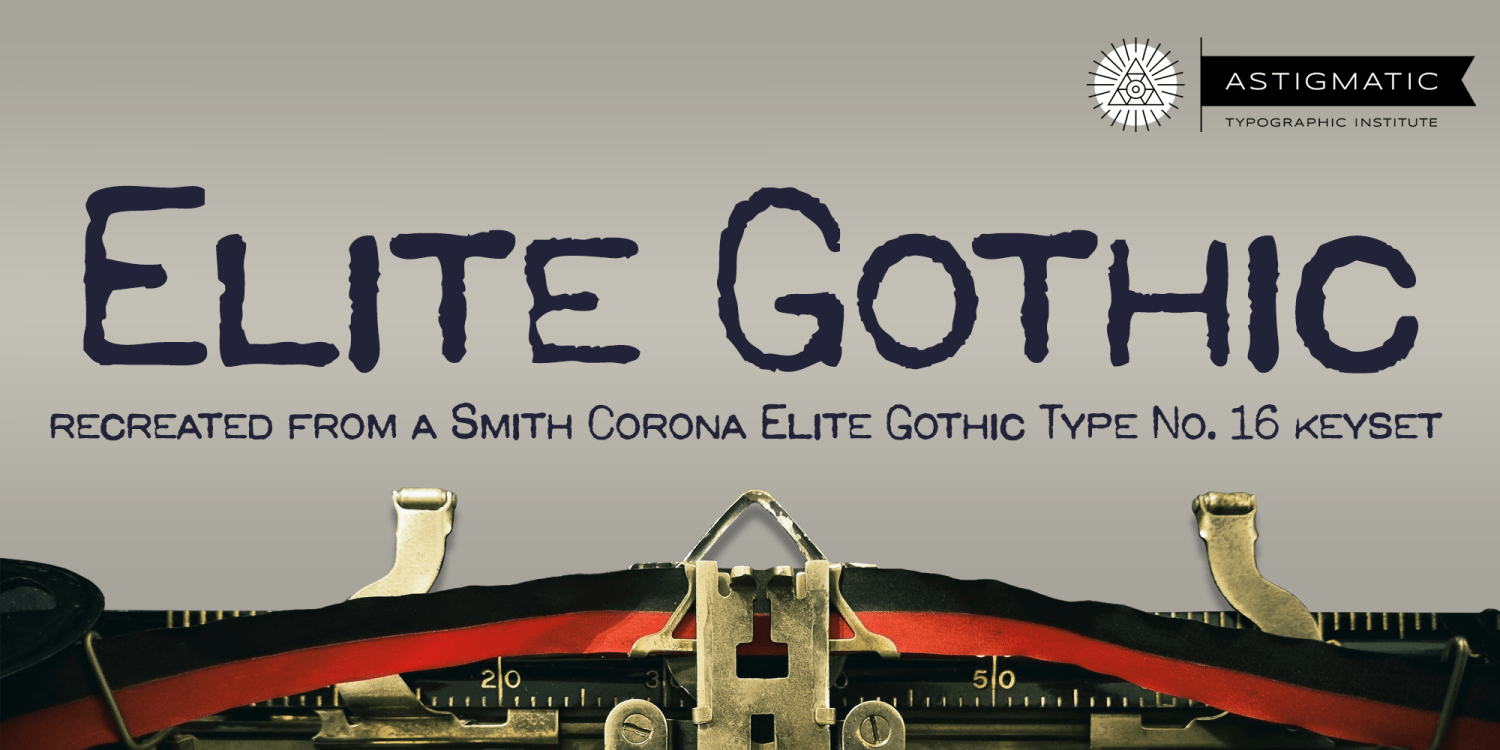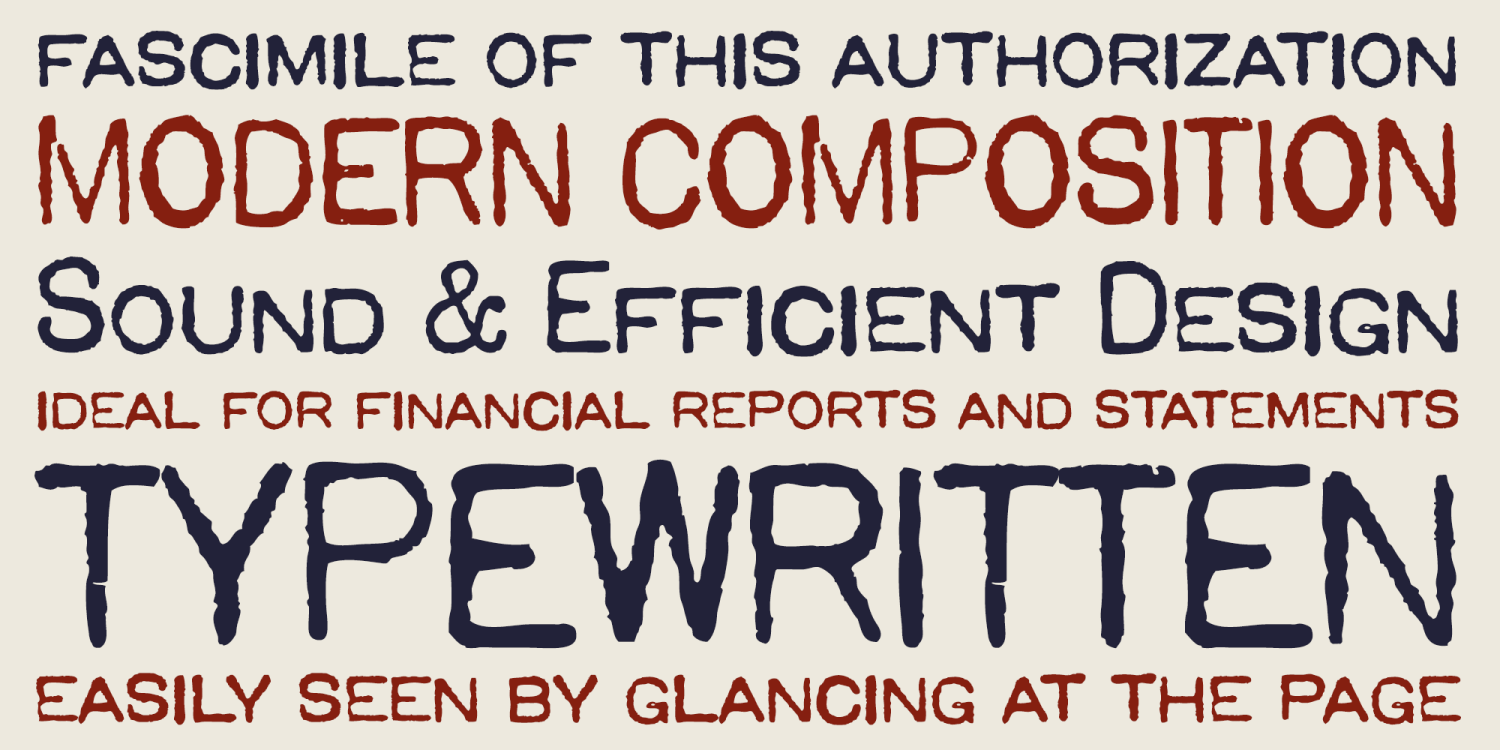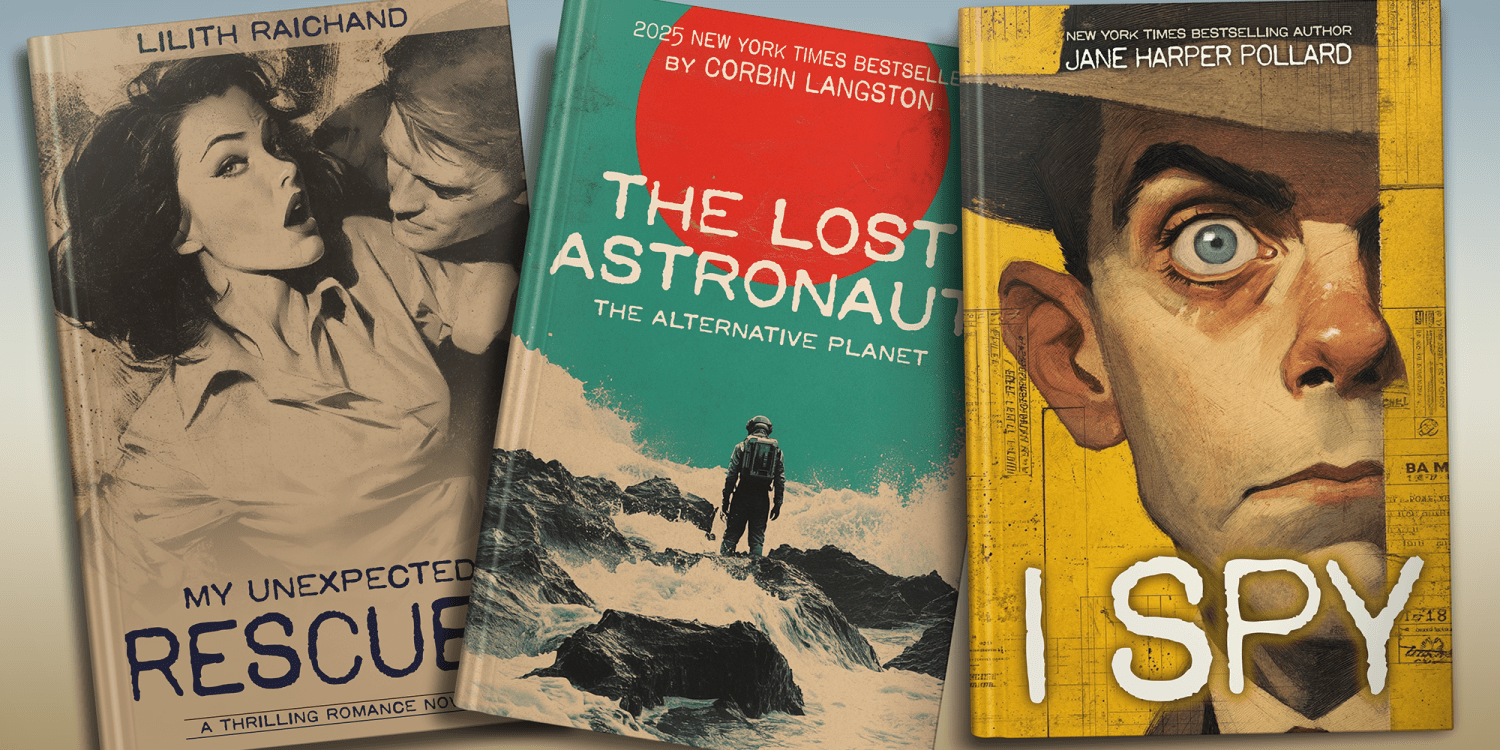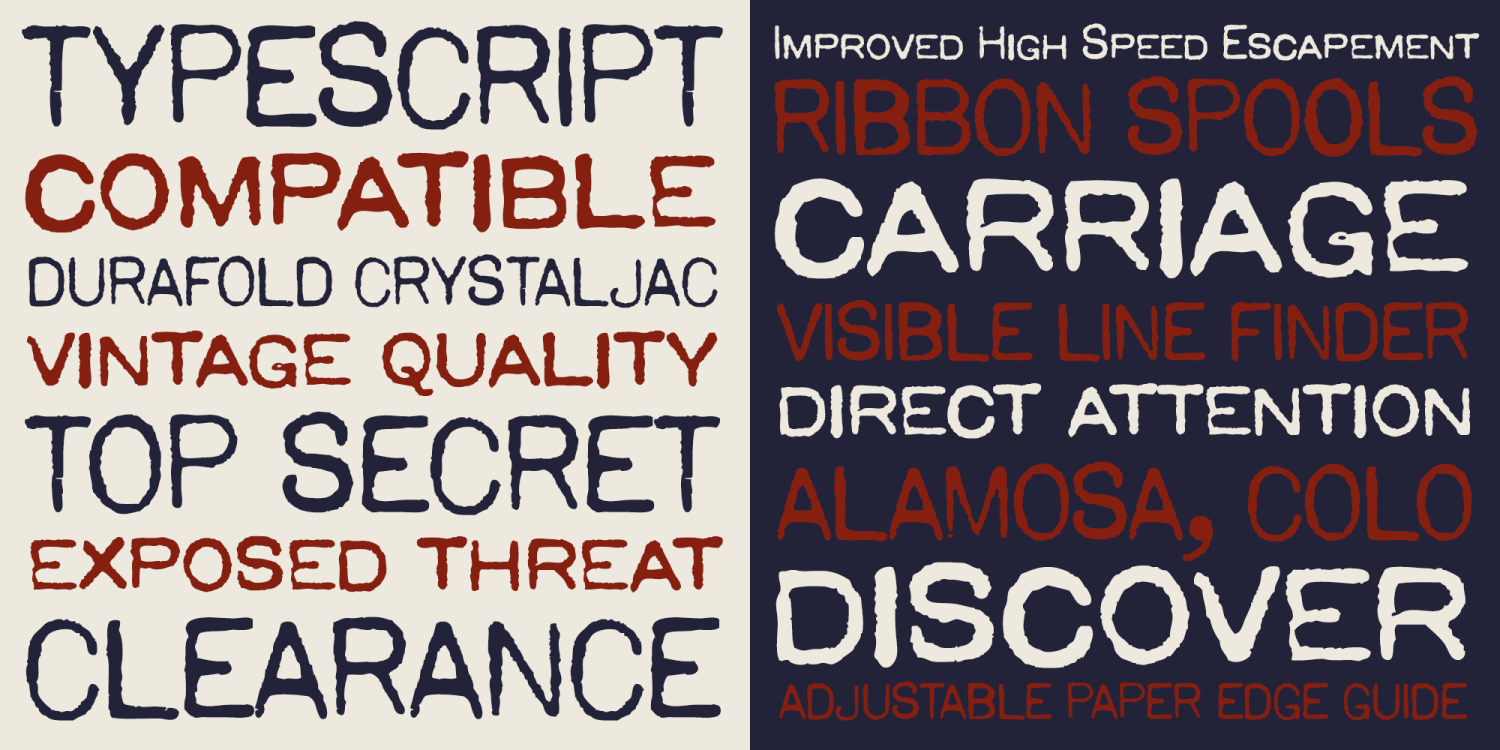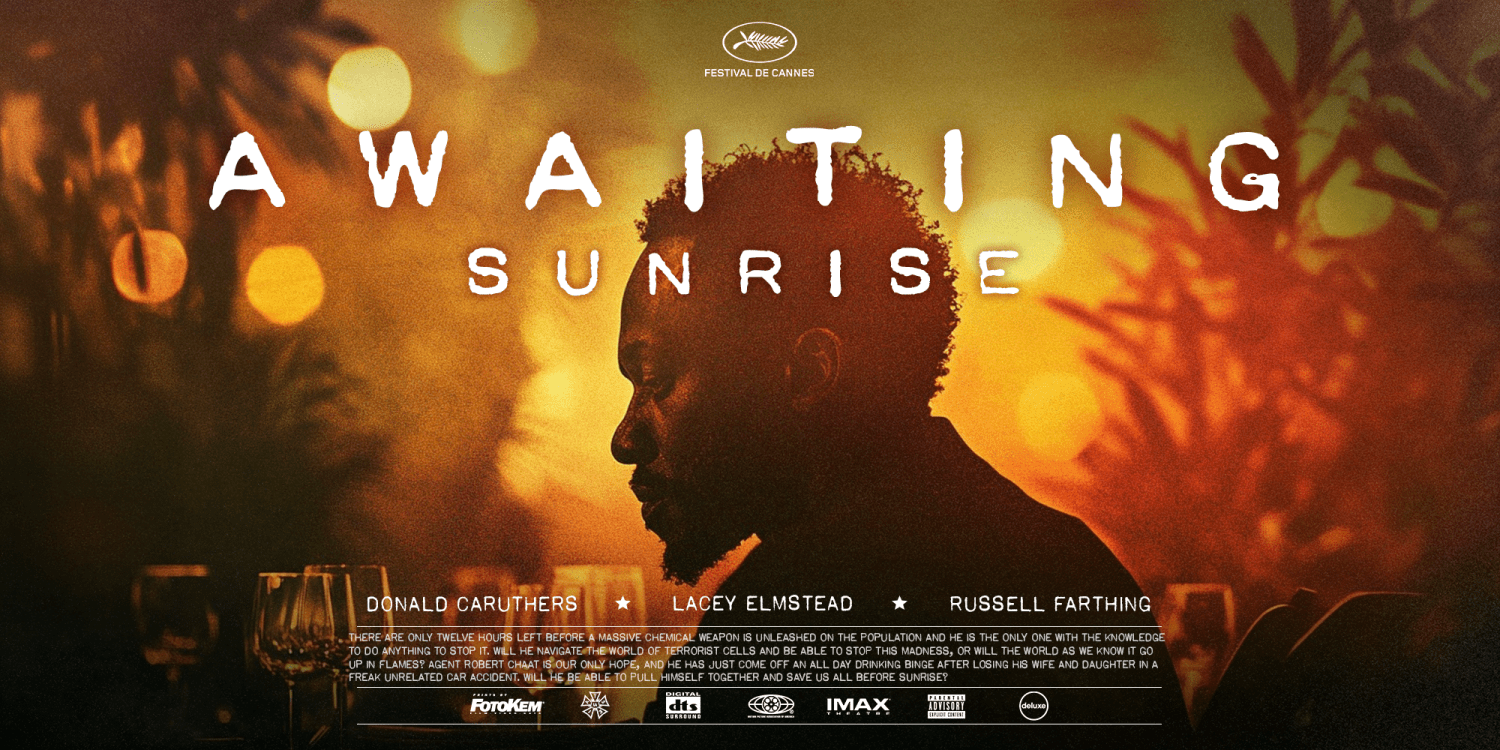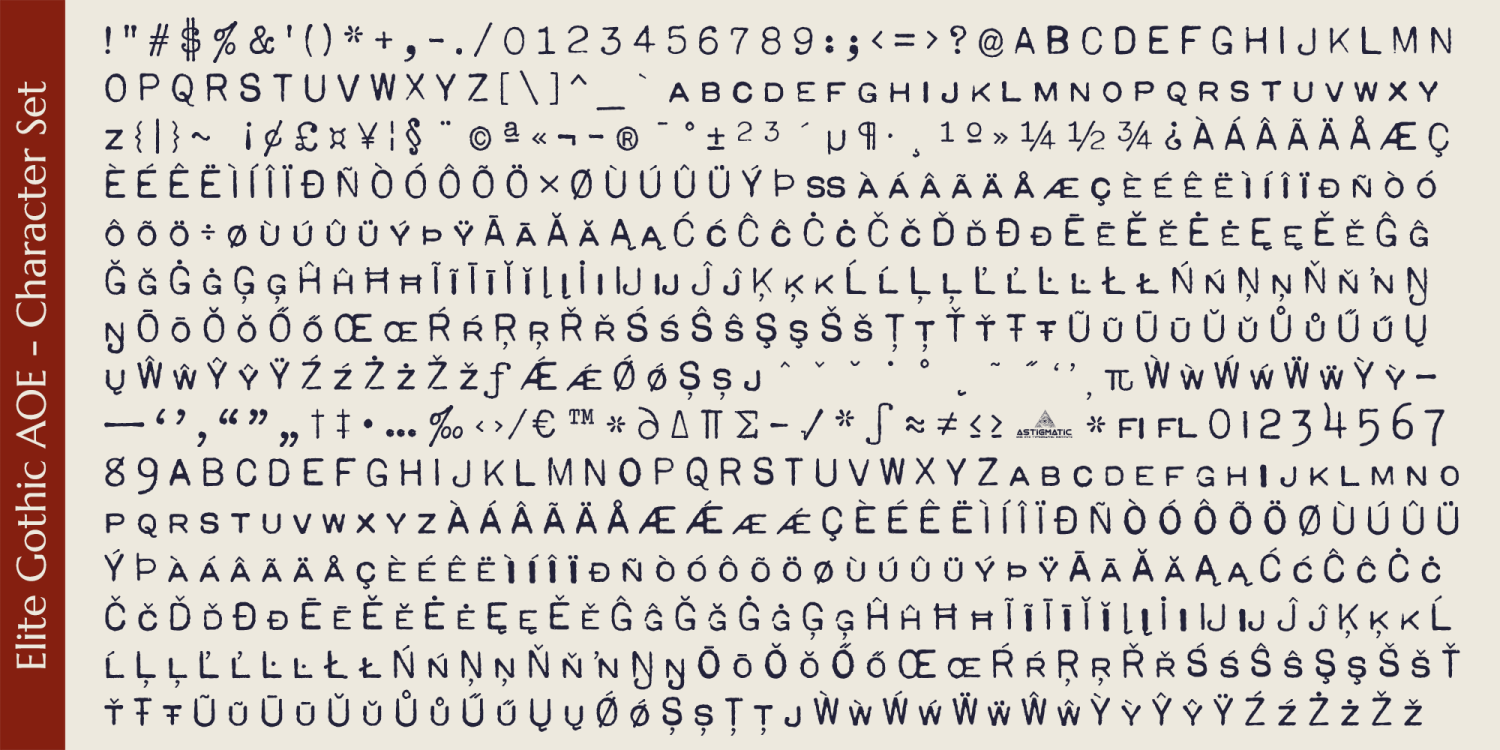
Elite Gothic AOE
Font Family by Astigmatic One Eye
Elite Gothic AOE brings the unique style of the Smith Corona Elite Gothic Type No. 16 vintage typewriter keyset to the digital age. Antique typewriters have an incredible warmth and appeal to them, primarily because of their unpredictable "grunge" results that were a mix from the force of keystrokes to the wear of the ribbon and paper texture. Elite Gothic has a full caps and smallcaps alternate set accessible by turning on Stylistic Alternates. It also appears when most double letter combinations are typed (swapping the second character for the alternate).
Extensive language support. Elite Gothic AOE has accented and special characters that support the following languages: Afrikaans, Albanian, Basque, Bosnian, Breton, Catalan Cornish, Corsican, Croatian, Czech, Danish, Dutch, Embu, English, Esperanto, Estonian, Faroese, Filipino, Finnish, French, Galician, German, Hungarian, Icelandic, Irish, Indonesian, Italian, Kurdish, Leonese, Luxenbourgish, Malay, Maltese, Manx, Maori, Meru, Morisyen, North Ndebele, Norwegian Bokmål, Norwegian Nynorsk, Nyankole, Occitan, Oromo, Polish, Portuguese, Rhaeto-Romanic, Romanian, Scottish Gaelic, Scots, Serbian (Latin), Slovak, Slovenian, Spanish, Swahili, Swedish, Tagalog, Turkish, Walloon, & Welsh.
Antique typewriters are incredible, but they aren't something easily accessible to everyone, nor do most people want to fiddle with white out edits and the like. That's why typewriter fonts that capture the flavor of vintage typewriters are a no brainer (convenient and easily editable). I hope you enjoy playing with it just as much as I had fun making it.